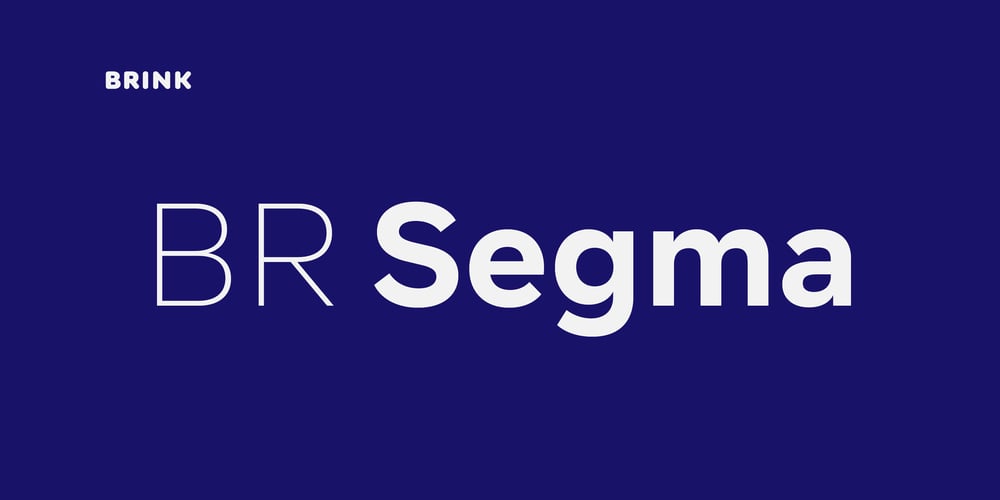
BR Segma
BR Segma font
BR Segma Font Family was designed by Christoph York and published by Brink. BR Segma contains 16 styles and family package options. BR Segma is a geometric sans-serif type family of 8 weights plus matching italics. Geometric precision and modern utility create a contemporary modern aesthetic, while open apertures, and low contrast strokes provide a comfortable reading experience. Segma builds upon geometric traditions but remains firmly in the present.BR Segma provides advanced typographic support with features such as case sensitive forms, fractions, slashed zeros and multiple figure sets.For custom enquiries please contact: mail@brinktype.com